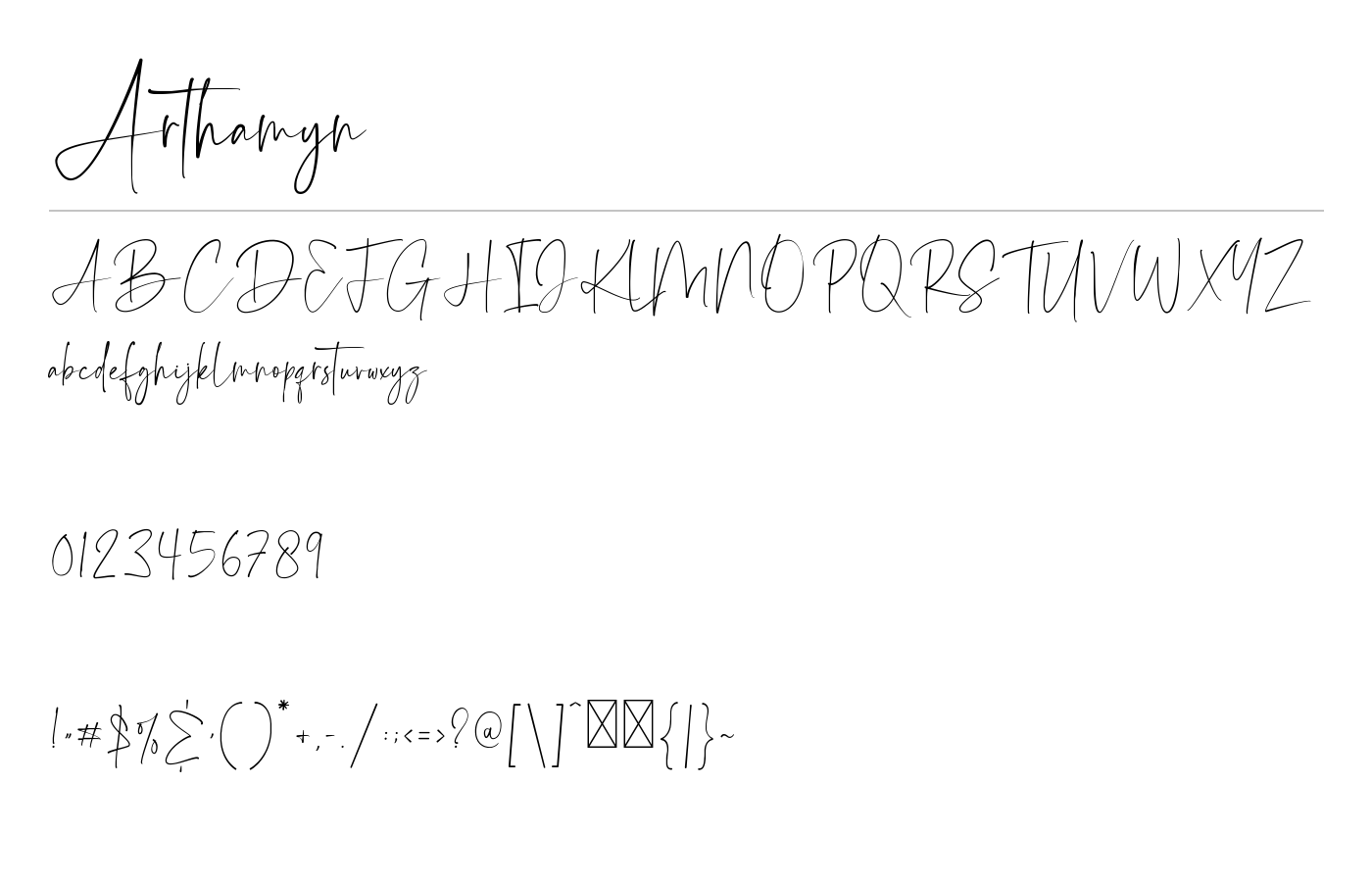
Arthamyn is a delicate and elegant handwritten script font characterized by its thin, flowing strokes and tall, narrow letterforms. Its light weight and natural, calligraphic style make it perfect for adding a personal, sophisticated touch to invitations, branding, and editorial designs. This font works beautifully in contexts where a refined, artistic, and graceful feel is desired, especially for luxury or fashion-related projects.
Arthamyn Font
About Arthamyn Font